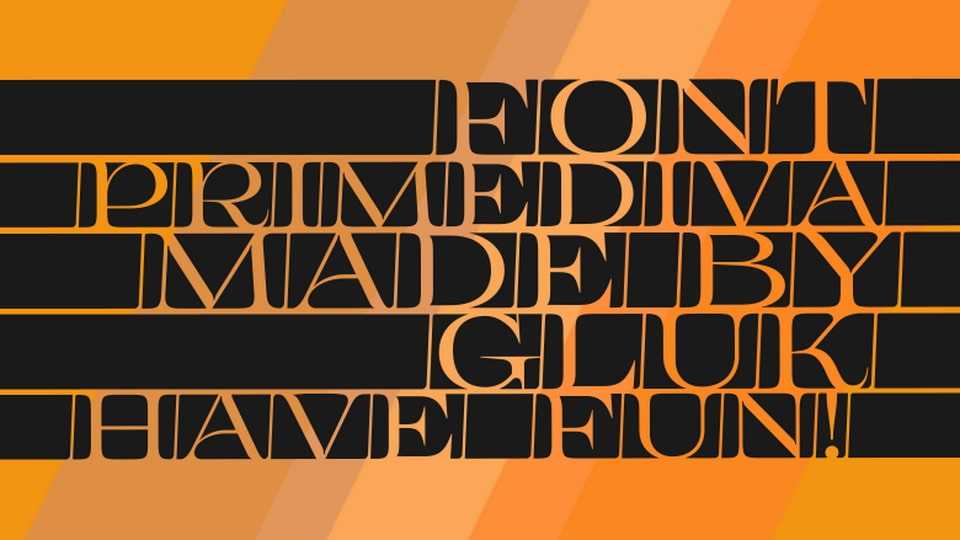
Download Primediva font, a highly decorative display typeface with stylistic alternates. Primediva font is perfect for headlines, posters, typographic artworks.
Designer: Grzegorz Luk